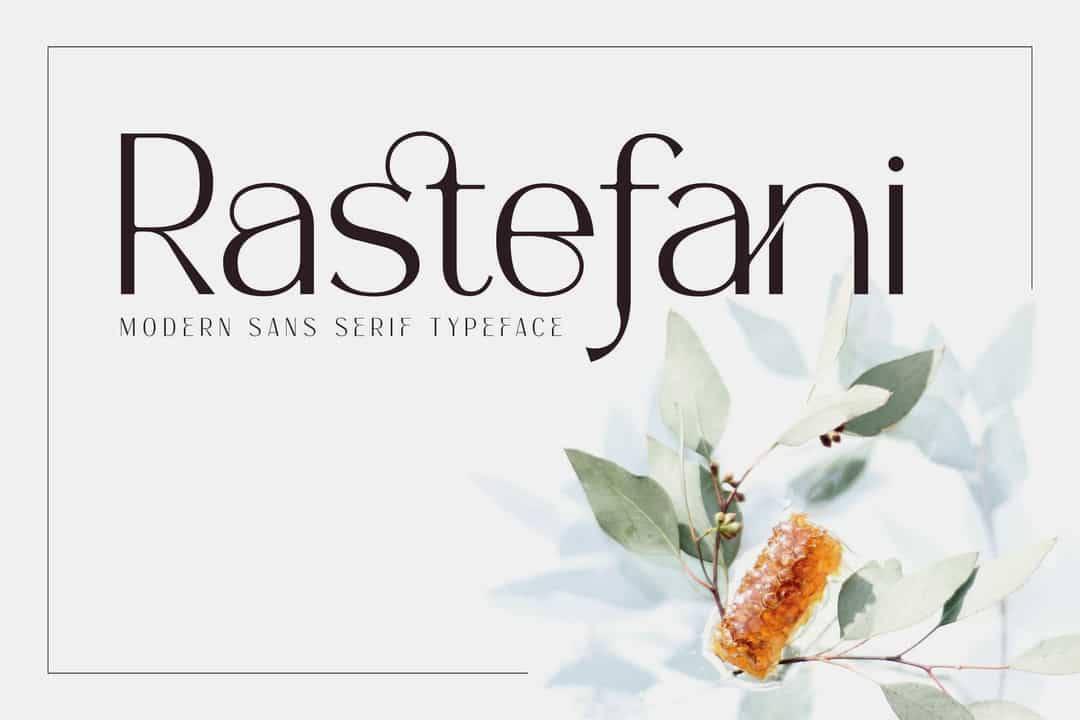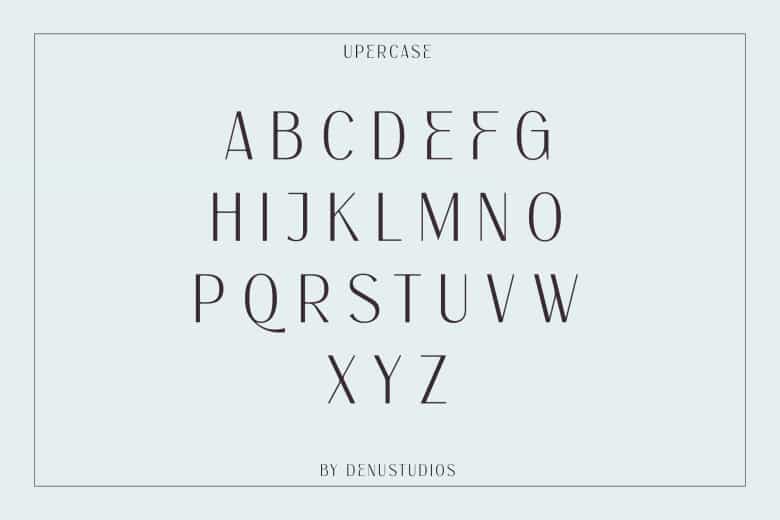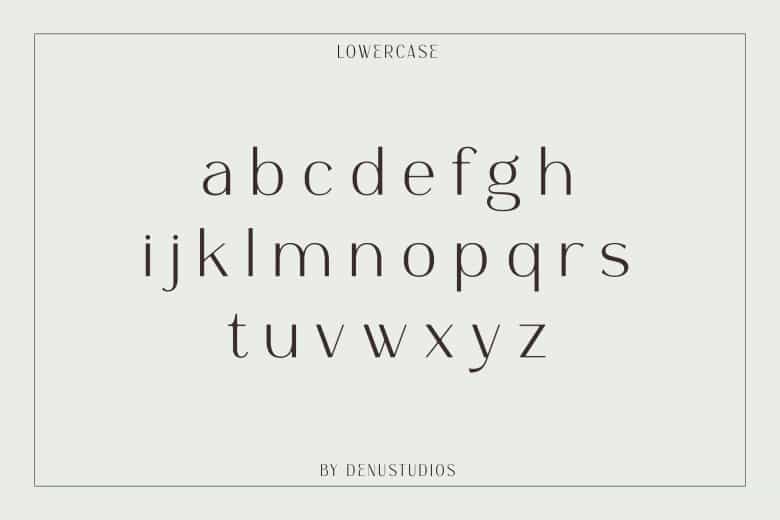
Discover Rastefani Font, part of the Sans Serif collection—a versatile and unique font perfect for adding a personal touch to your projects. Download it for free and enjoy crafting designs with style, from invitations to social media posts. This font is available exclusively for personal use, giving you the freedom to create without limits. Unlock your creativity with Rastefani Font today!
Rastefani is an elegant sans serif typeface designed for use in many styles that call for individual expression, such as wedding invitations, Thank you cards, greetings cards logos and more. Furthermore, Rastefani can be PUA encoded for easy access of symbols and ligatures!